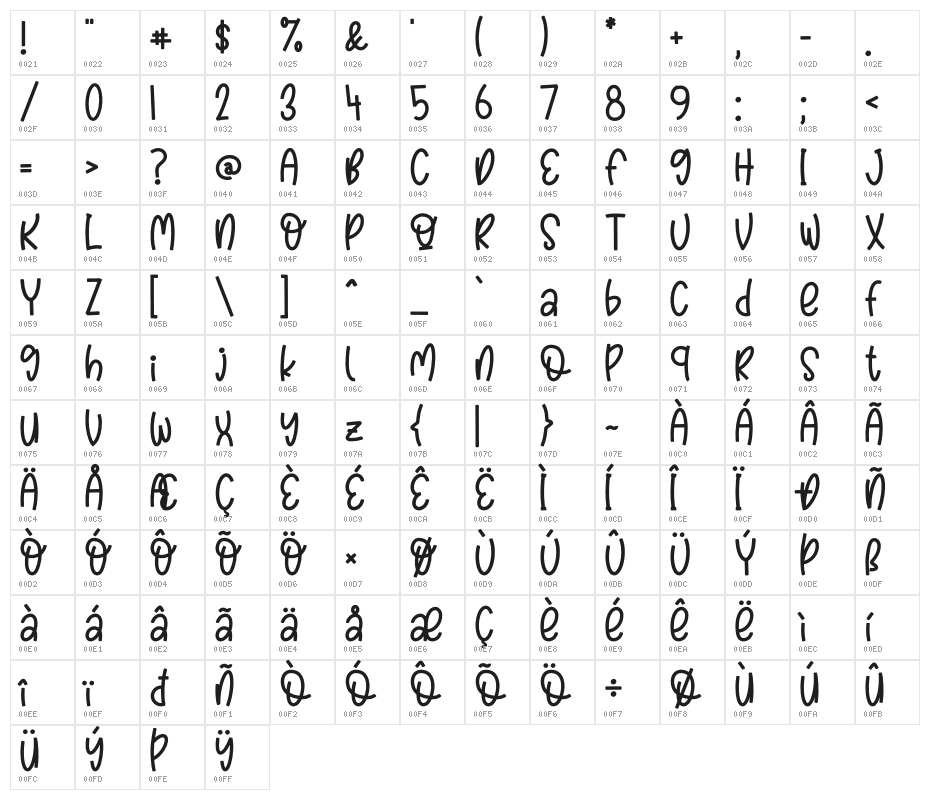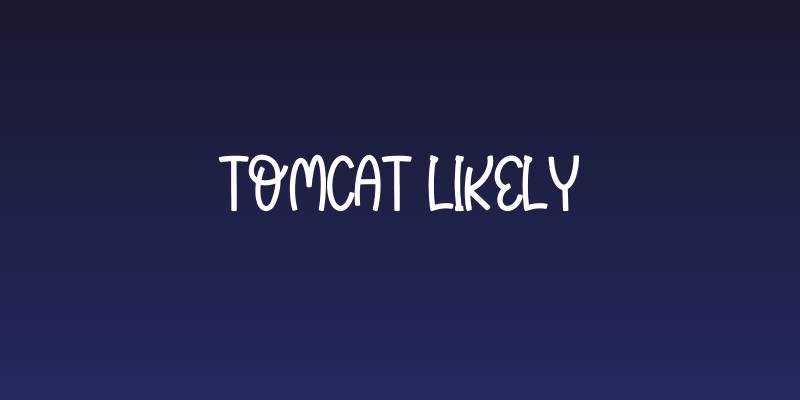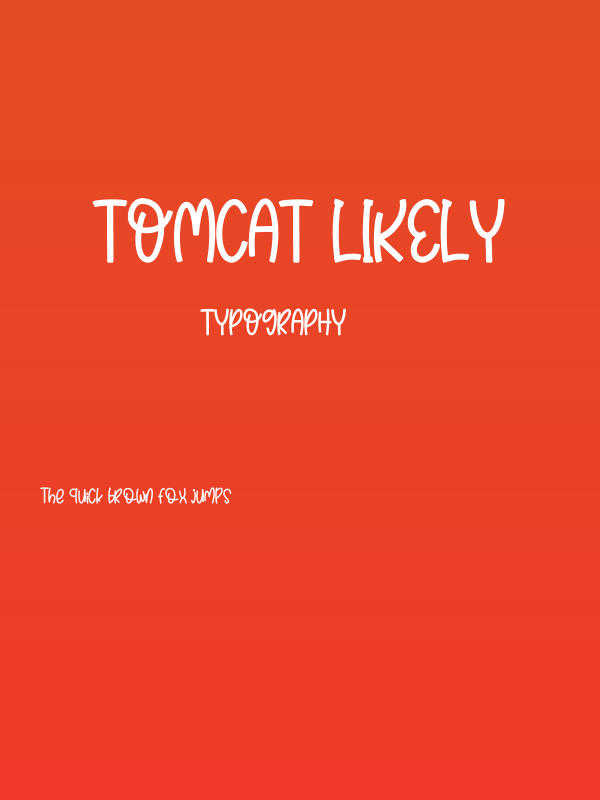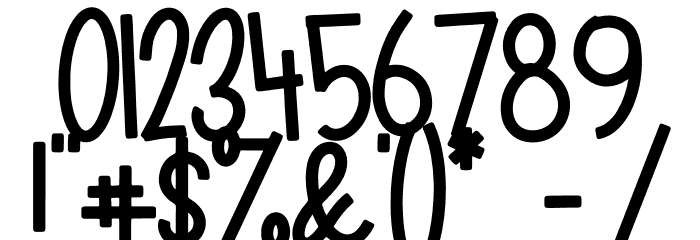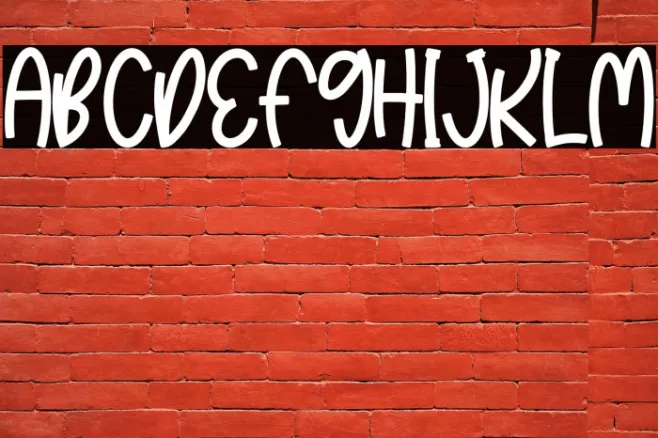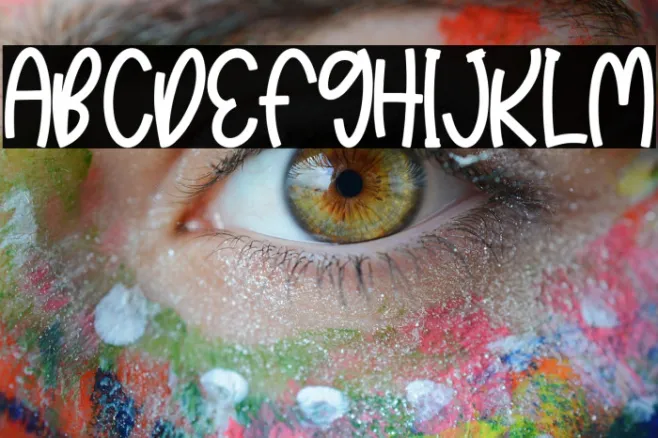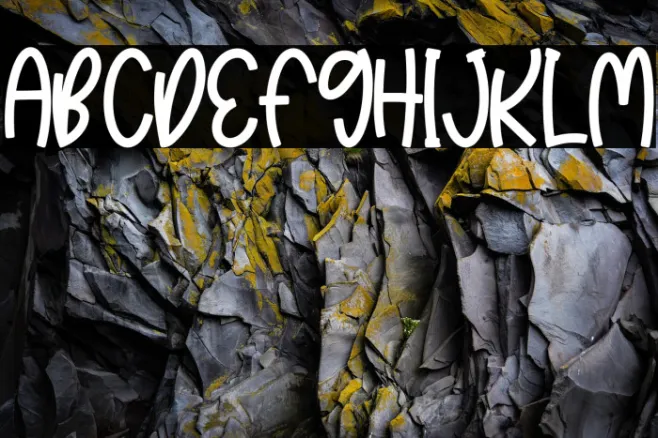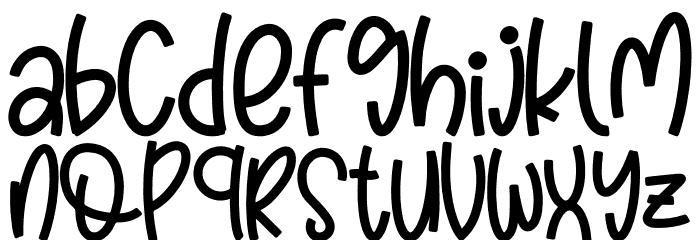
Tomcat Likely Font
Tomcat Likely Description
This font features a playful and informal handwritten style, characterized by its bold and rounded letterforms. The uppercase and lowercase letters maintain a consistent flow, with slightly exaggerated curves and loops that add a whimsical touch. The numbers and special characters follow the same design principles, ensuring a cohesive look across all elements. The font's thick strokes and smooth lines make it highly legible, while its unique personality shines through in each character. This style is perfect for projects that require a fun and approachable aesthetic.
| Use Case | Logos, Headlines, Posters |
| Proposed Projects | Ideal for children's books, greeting cards, playful branding, and social media graphics. |